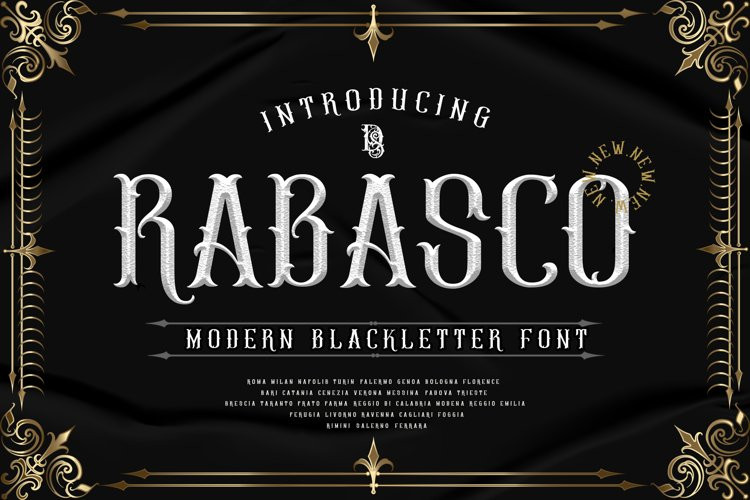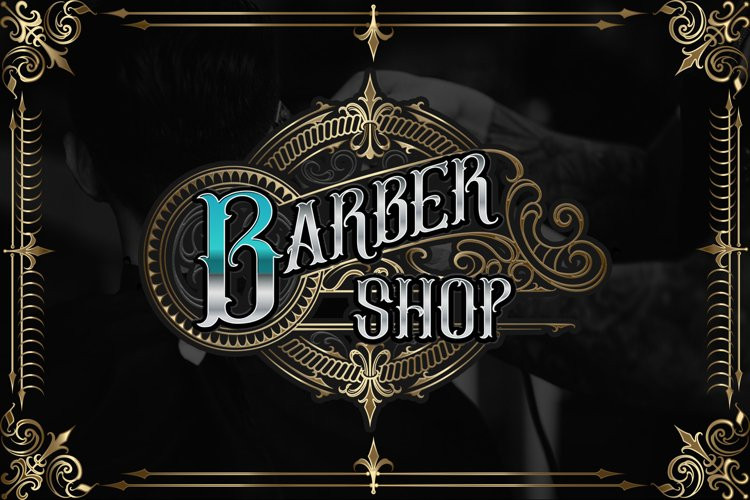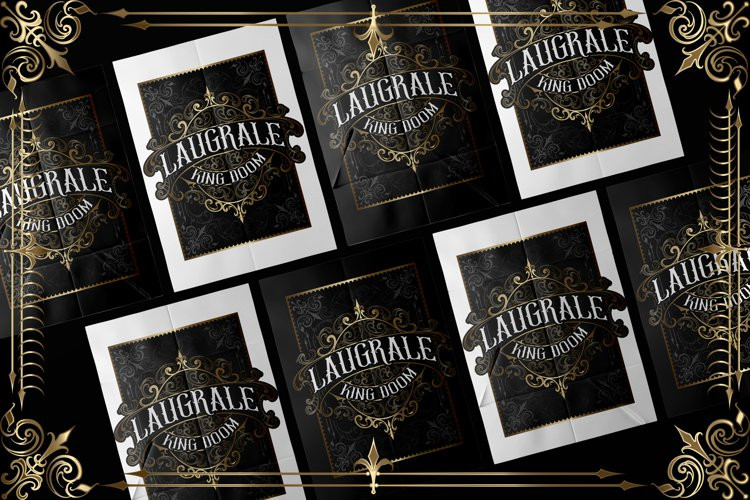
Rabasco Font
Rabasco FontDansdesign Proudly present our new product RABASCO This font is made with references to various Blackletters that I combine and design with my style.
RABASCO are great and usefull for product logo, poster title, headline, packaging, badge, card logo, clothing brand logo, Vintage design, tattoo design and much more